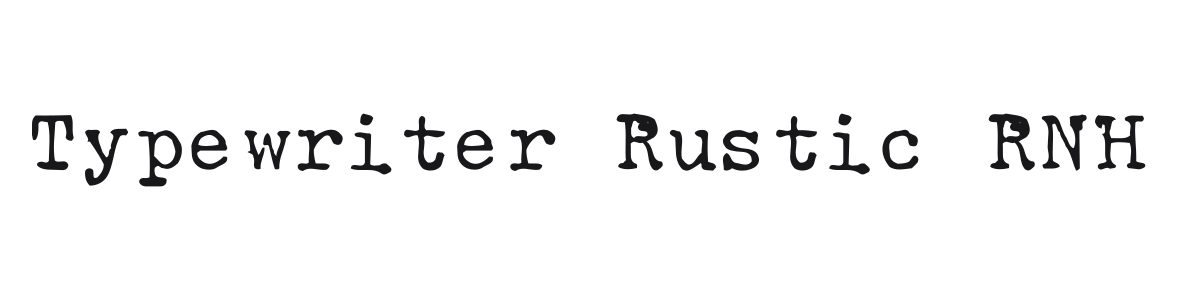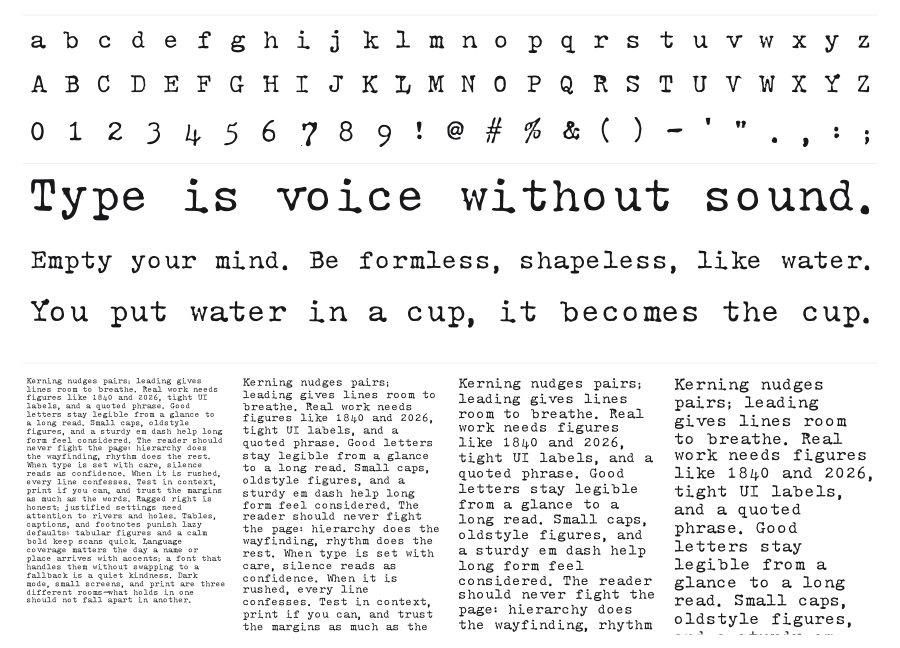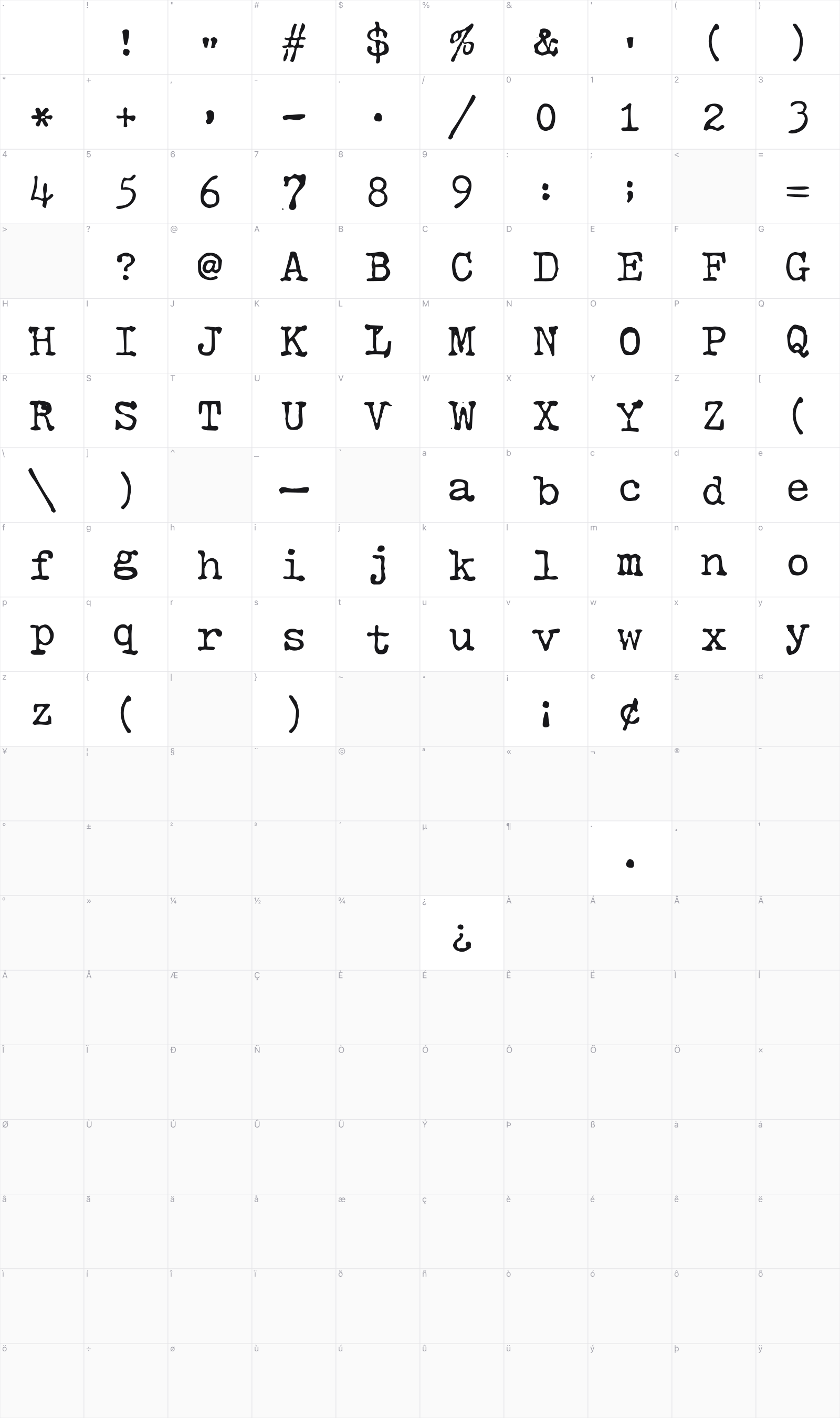
Typewriter Rustic RNH
Typewriter Rustic RNH is a worn typewriter face with rough, inky edges that make it feel genuinely used rather than merely styled. The low-contrast slab serifs and even spacing stay true to classic typewriter mechanics, while the textured strokes push it toward something more characterful and handmade. It sits naturally on labels, posters, and anywhere a sense of aged authenticity matters.